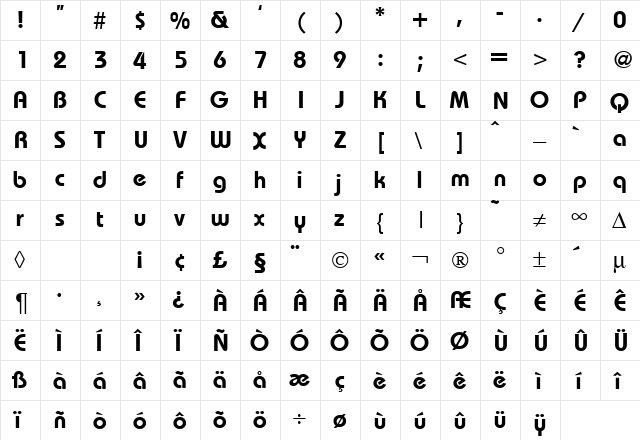
RoundHouseDemi Regular
Design Context for RoundHouseDemi Typeface
RoundHouseDemi uses gentle rounded endings to create a warm, inviting typographic personality — less corporate than geometric sans, more refined than playful display fonts.
Well-suited to UI design, mobile interfaces, and any brand that wants approachability without sacrificing clarity.
Font Pairing: Pairs well with a rounded or humanist sans for body copy, maintaining the friendly tone without relying on RoundHouseDemi to carry extended reading.
Pro Tip: Use RoundHouseDemi for UI elements, app interfaces, and anywhere a friendly, approachable tone needs to be maintained without sacrificing clarity.